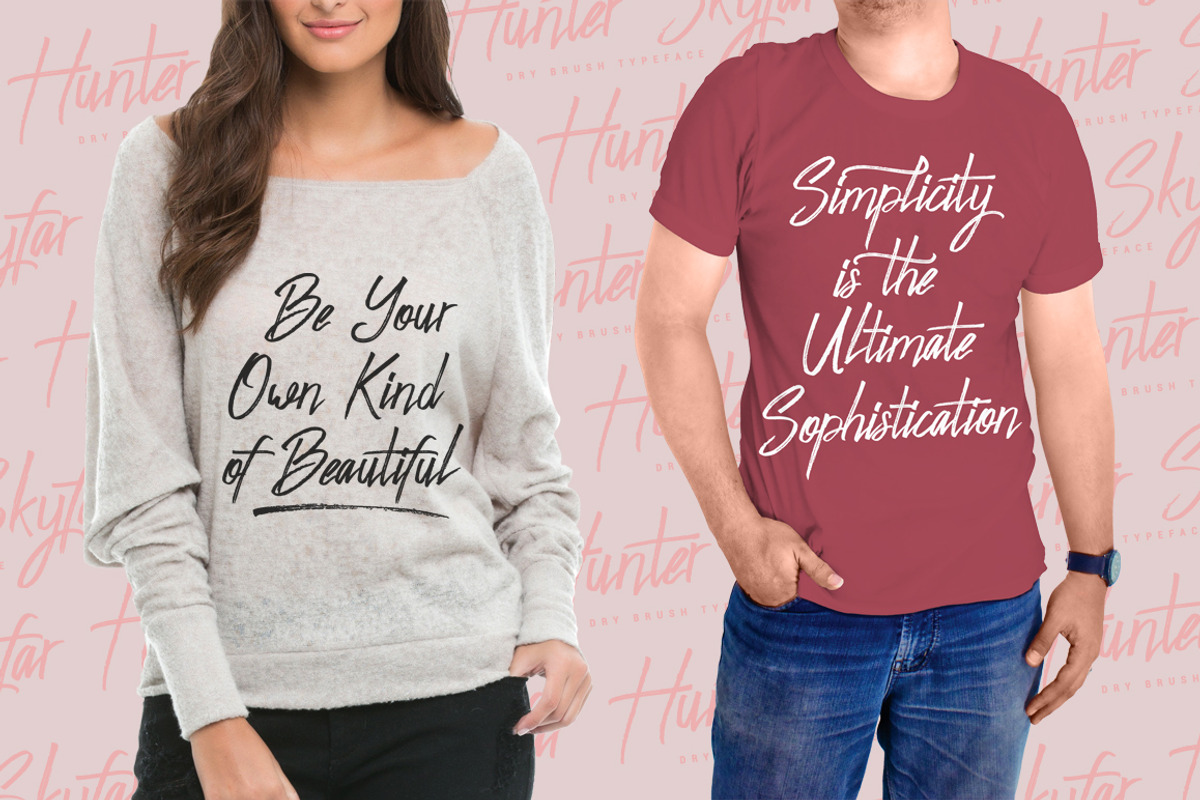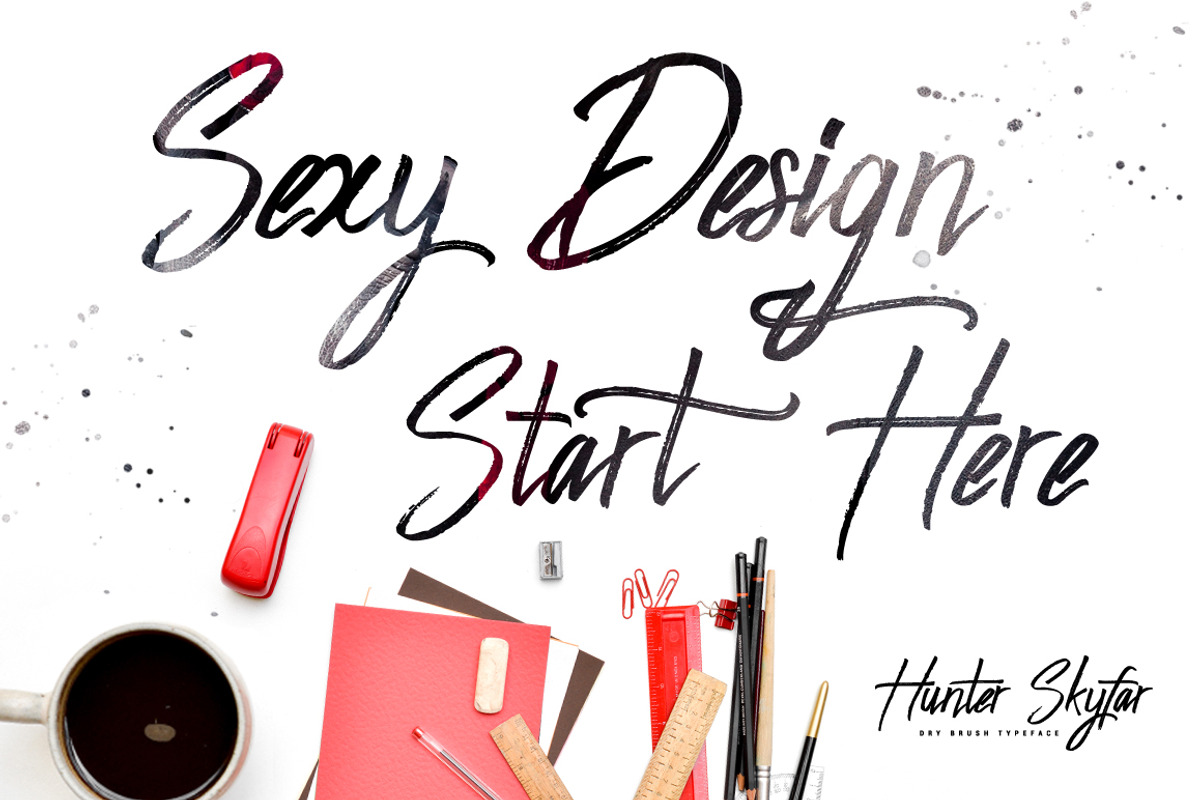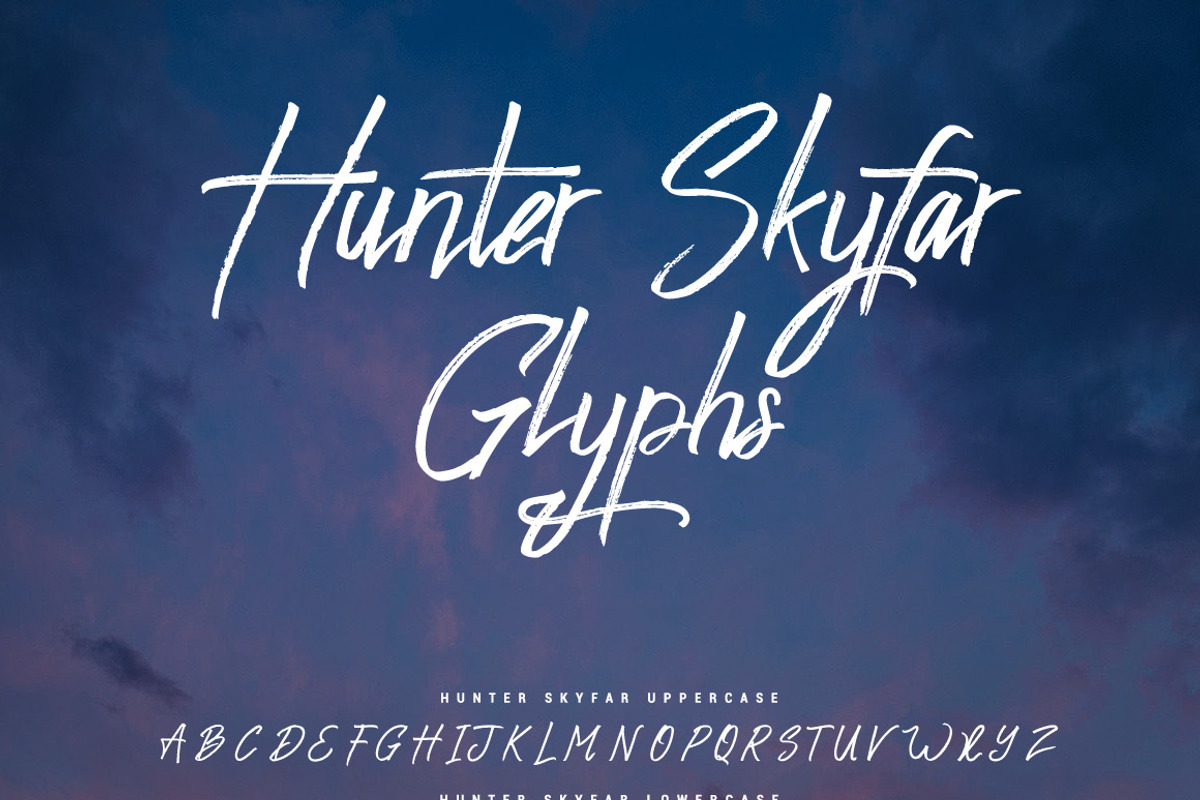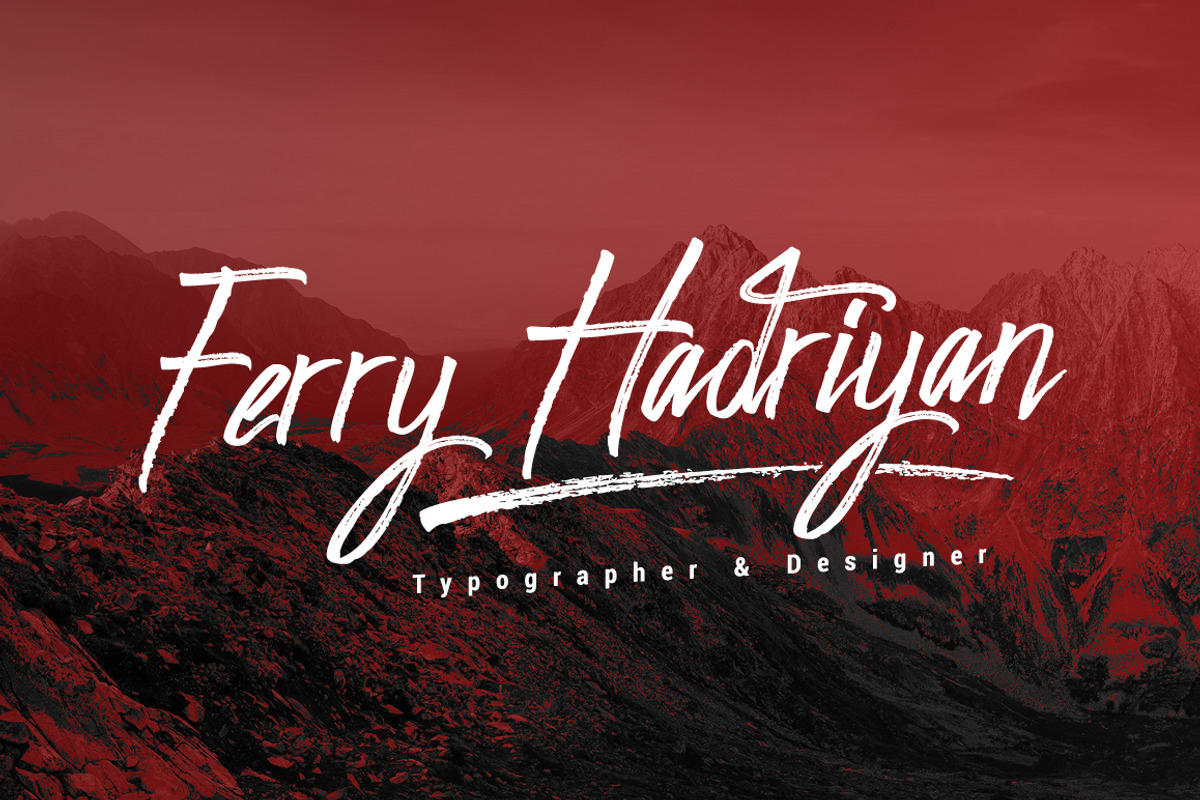
Hunter Skyfar- Dry Brush Script
Hunter Skyfar is Dry Brush Script Font with handletter style, so much opentype feature include of the font. Suitable for design, element design, wedding, event, t-shirt, logo, badges, sticker, and awesome work, etc...
Feauture Of The Font:
Unique style fonts
Easy customize